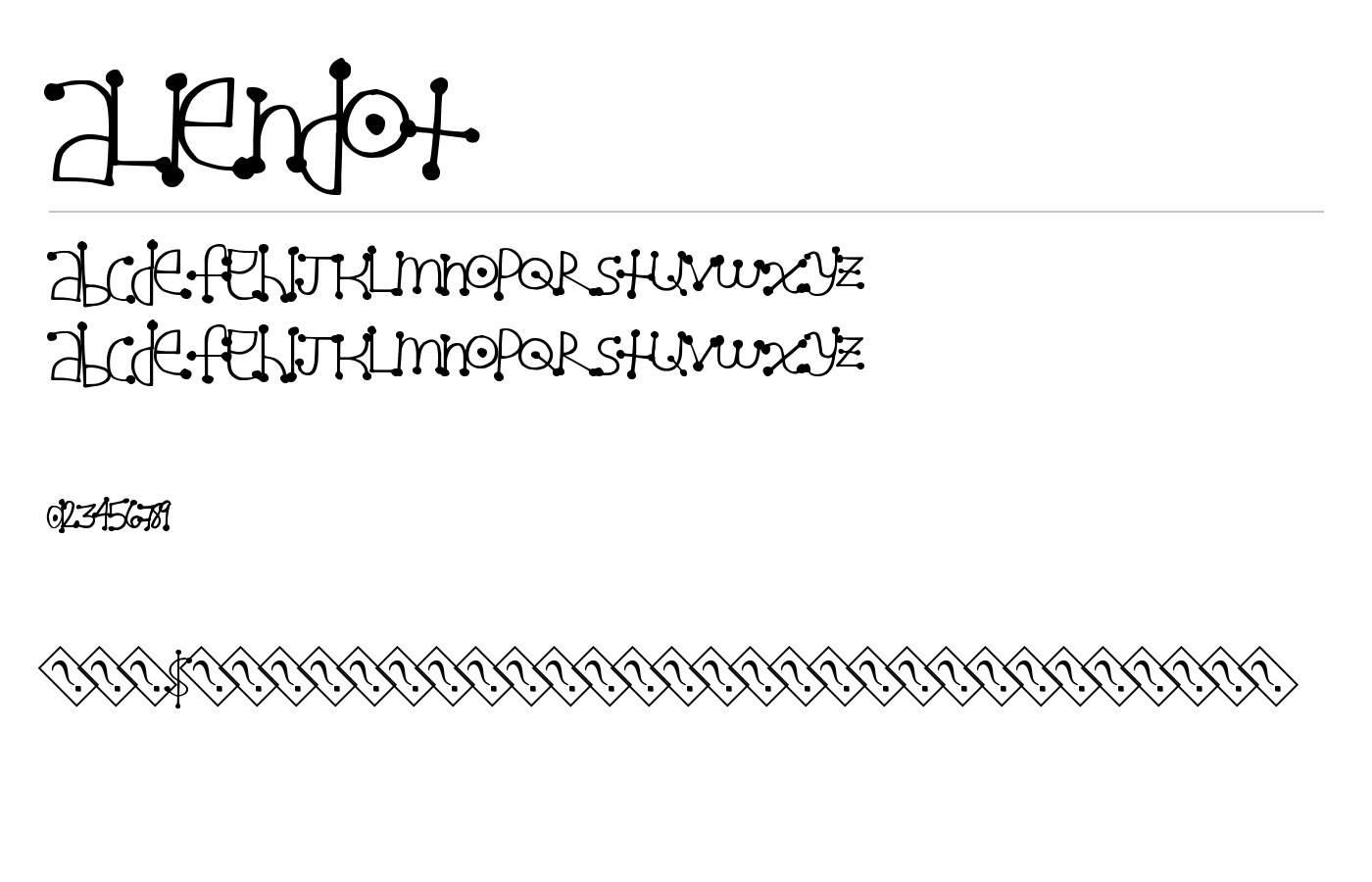
AlienDot is a quirky, playful handwritten font characterized by thin, irregular strokes connected with distinctive round dots at the ends, creating a whimsical and alien-like feel. Its narrow, delicate letterforms with unique details make it perfect for creative projects, children’s materials, or any design seeking a fun and unconventional personality. This font works best in logos, headlines, and decorative uses where a lighthearted and imaginative tone is desired.
AlienDot Font
About AlienDot Font